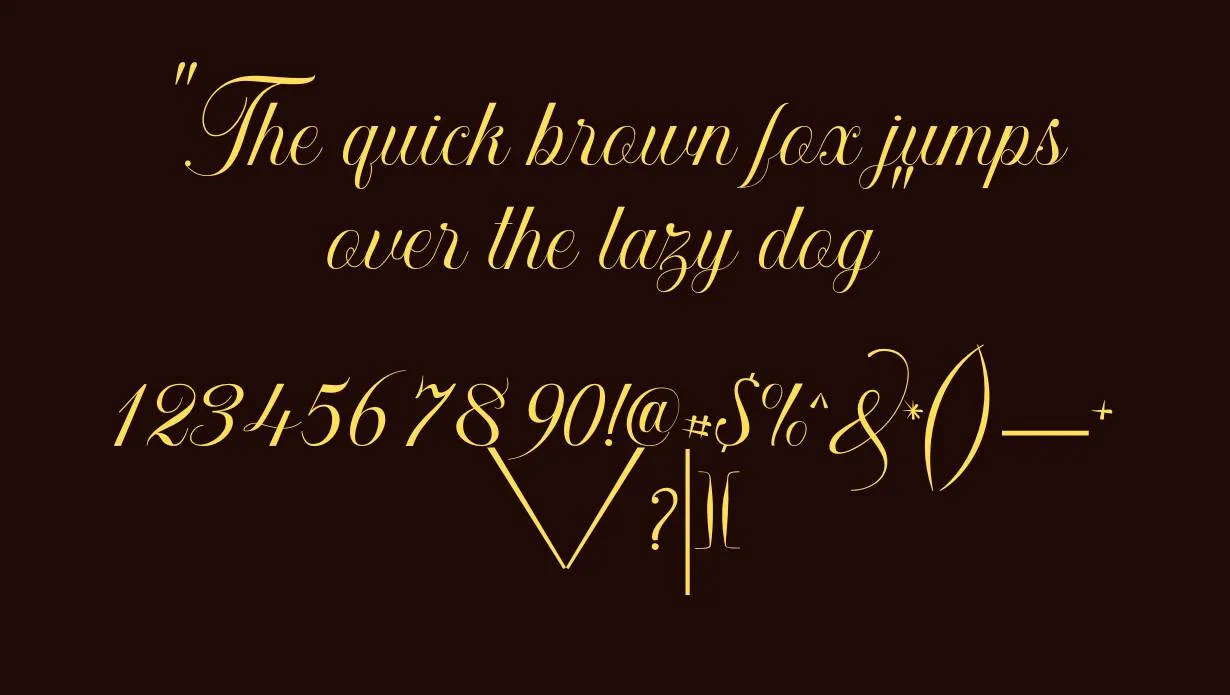
Khatija Calligraphy font evokes elegance and tradition, often seen in wedding invitations, certificates, or designs seeking a refined and ornate touch.
To achieve an exclusive and eye-catching design, it is essential to pair this font with the nature beauty font. Its calligraphic style adds sophistication and grace to the text, making it an ideal choice for designs aspiring for classic and timeless beauty.